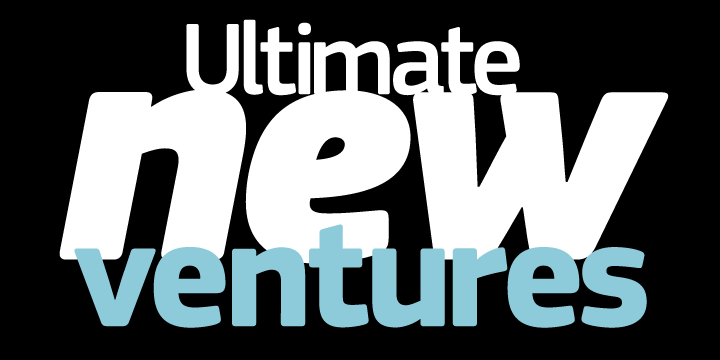
Panos Vassiliou, the renowned designer crafted Square Sans Pro. This was a genuine pursuit of the designer to invent a true square-like text typeface that is efficacious enough to strike a balance within simplicity and vitality.
He also strived hard to create a typeface that enhances the calligraphy with its subtle power sans compromising its unique characteristics as a text typeface. The family comprises of 12 fonts right from extrablack to thin and true italics, the typeface.